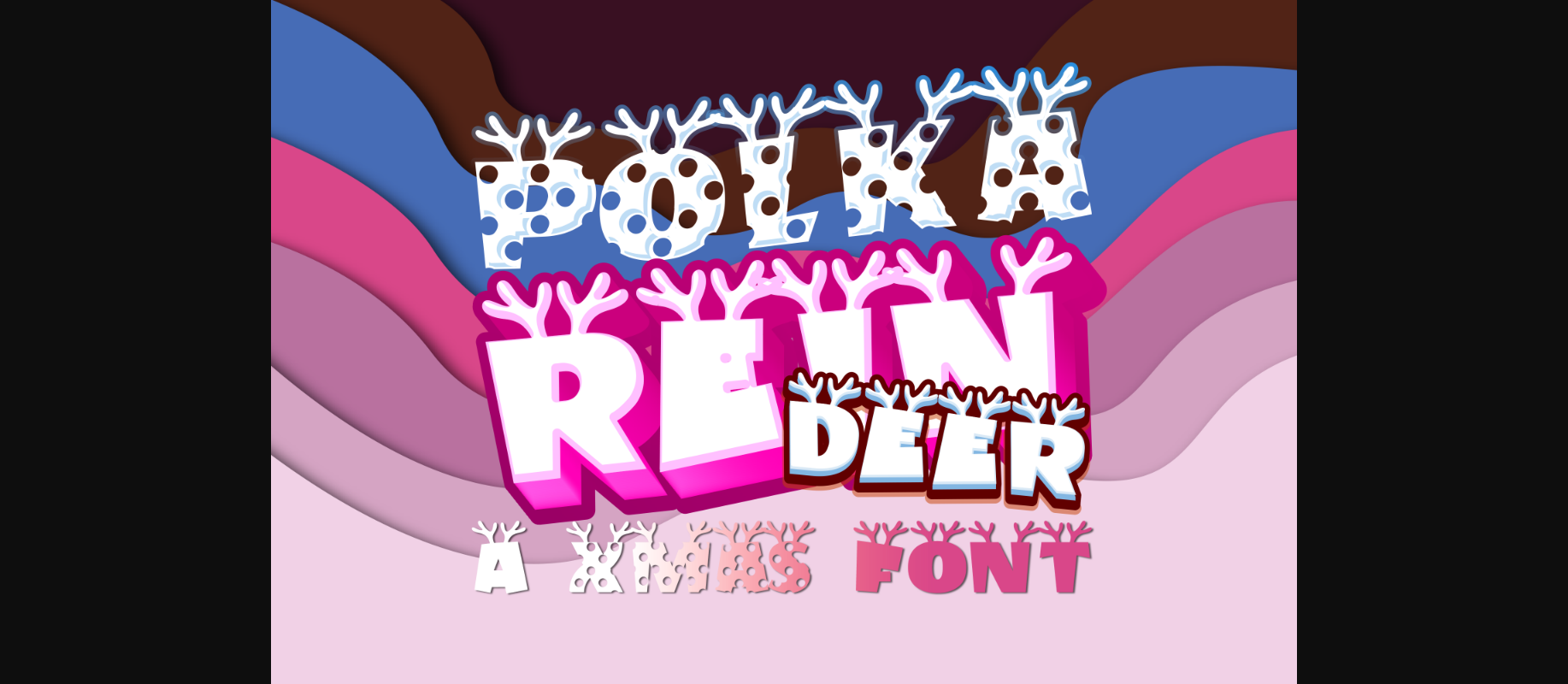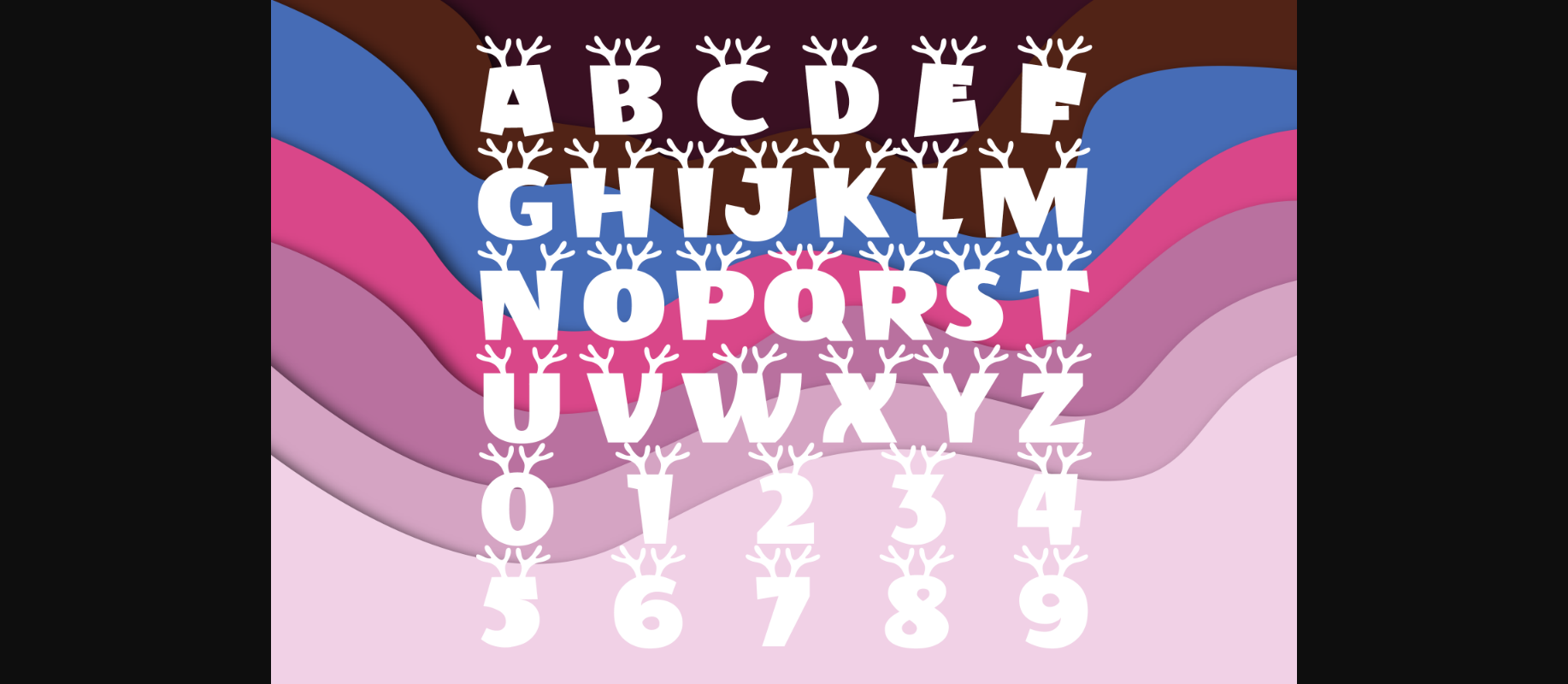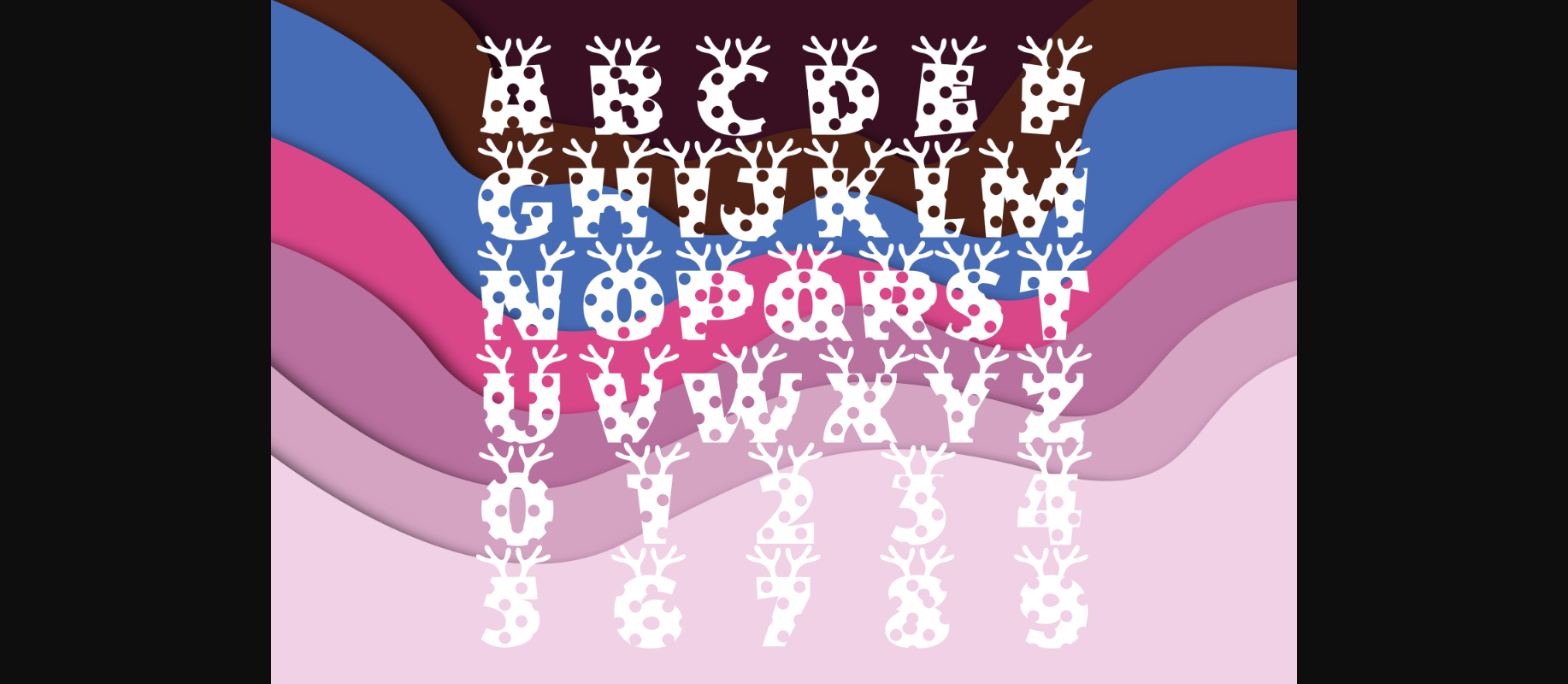
HomeDecorative FontsPolka Reindeer Font Decorative Fonts Polka Reindeer Font FacebookXPinterestWhatsApp 1 of 5 ... Polka Reindeer Font Poster 2... Polka Reindeer Font Poster 3... Polka Reindeer Font Poster 4... Polka Reindeer Font Poster 5... About Polka Reindeer Font Polka Reindeer is an incredibly cool decorative font. Whether you use it for cartoon-related designs, children games, or just any creation that requires a lovely touch, this font will be an amazing choice. DOWNLOAD NOW People also explored Neguhetty Font Kid’s Love Font Kvitra Font Belive Font Valetha Font Delaney Script Watermelon Font Goldside Font Mc Hambrug Font 337 0 TagsPolka Reindeer Font Previous articleMonogram Witch Cauldron FontNext articleHelowin Font LEAVE A REPLY Cancel reply Comment: Please enter your comment! Name:* Please enter your name here Email:* You have entered an incorrect email address! Please enter your email address here Website: Save my name, email, and website in this browser for the next time I comment. Personal Use Free Leadent Script Personal Use Free Read more about this font Die Nasty Personal Use Free Read more about this font Muthiara Font Personal Use Free Read more about this font GoodFay Personal Use Free Read more about this font BLOG Fonts That Capture the Spirit of New York City New York City is more than just a place—it’s an experience, a rhythm, a visual language... Free Fonts Risk: Why Free Fonts Can Be Dangerous for Designers How to Cut Any Font on Cricut: Convert a Font to SVG (Free) 5 Fonts That Will Dominate Design Trends in 2026